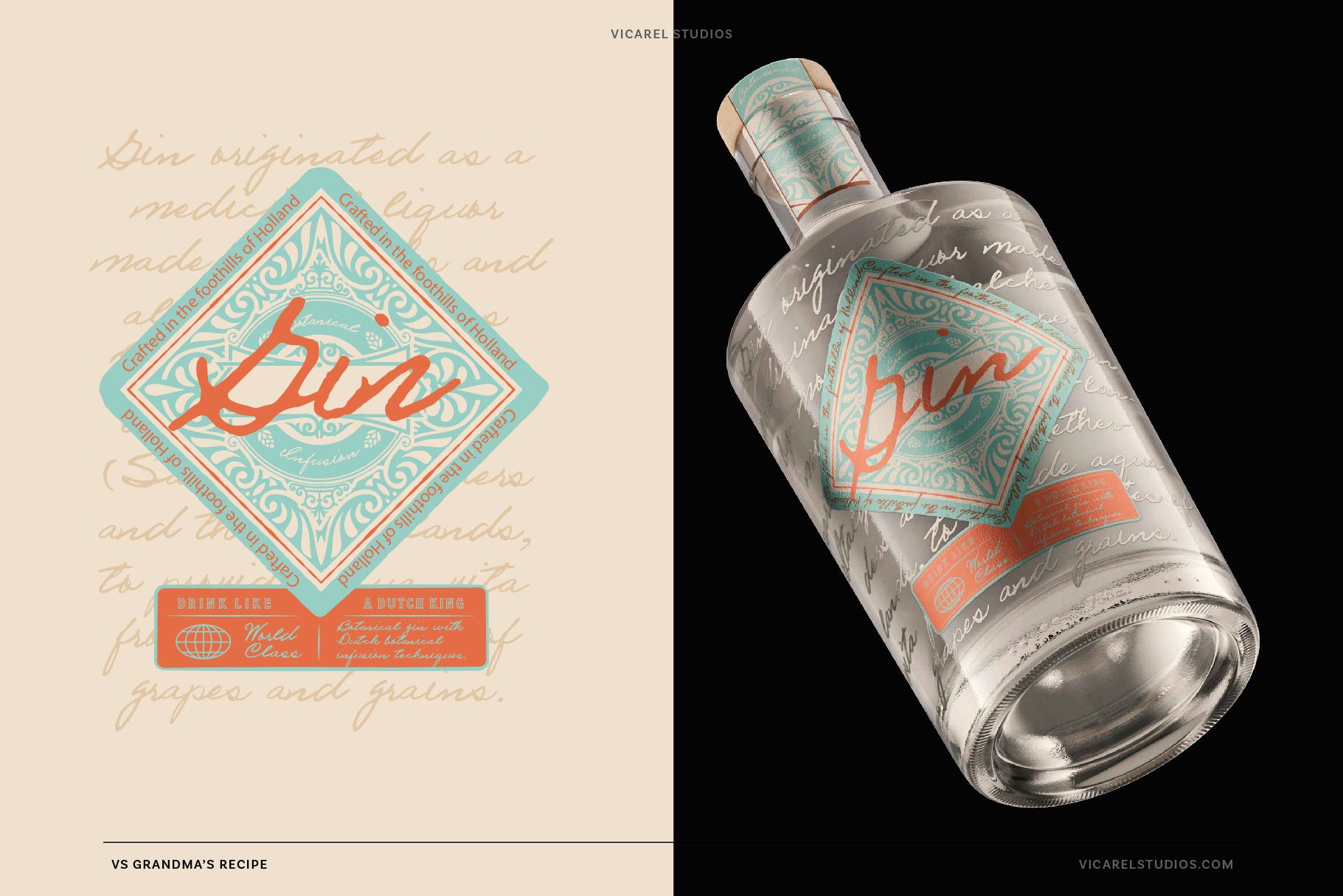
VS Grandma's Recipe: A Realistic Handwritten Script Font Built for Designers
VS Grandma's Recipe: A Handwritten Script Font That Actually Looks Like Handwriting
How we used inspiration from real handwritten notes, letters and recipes to create Vicarel Studio’s first handwritten script font, VS Grandma’s Recipe
If you've ever searched "handwritten script font" and spent 45 minutes scrolling through options that all feel slightly off: welcome to the club.
Most handwriting fonts have a problem: they're too consistent. The feel like “a font”, not “handwriting.” Every "a" looks identical. Every loop is the same width. The baseline is either way too consistent or way too bouncy.
Real handwriting doesn't look like that. Real handwriting has inconsistent angles, uneven line weight, letters that connect differently depending on what comes before or after them. It has personality — because, well, it’s human.
VS Grandma's Recipe is a handwritten script font we made because we couldn’t find what we actually needed. It's based on the actual handwriting of Dorothy — the grandma of our designer, Carly Salzman — whose penmanship was beautiful (if we do say so ourselves). We digitized her letters, analyzed what made them feel human, and built a font that replicates those nuances.
The result is VS Grandma’s Recipe: a script font with multiple variations of almost every letter, number, and punctuation mark. So, when you type a word like "coffee" you get two different f's and two different e's. It looks like something written by hand. Because it basically was.
It works great for packaging labels, wedding stationery, recipe cards, restaurant branding, apparel, and anywhere else where the appearance of human touch is needed. If you've been disappointed by handwriting fonts that look too robotic or too dancey, this font is for you.
If you want to know how we actually built it: the process, decisions and nuances, keep reading :)
VS Grandma’s Recipe is a realistic handwritten script font inspired by the actual, beautiful handwriting of our (designer, Carly Salzman’s) grandma, Dorthy.
For years we’ve looked for realistic handwriting script fonts, and we haven’t been able to find the right one. Despite there being countless options available, handwritten script fonts oftentimes have letters that are too repetitious or too calculated — with VS Grandma’s Recipe we bring you a typeface that actually feels like handwritten letters.
Our goal with this handwritten script font — or, any hand lettered fonts, for that matter — is to create something that captures the unique character and quality of truly handwritten notes, letters, or in this case, handwritten recipes.
In order to create a realistic handwritten font, you need to consider the nuances of true handwriting. After analyzing numerous handwritten fonts, we noticed that the disconnect oftentimes came from the consistent digital application of something that was intended to feel handwritten.
Simply: in order for us to create the best handwritten script font, we simply needed to embrace the nuances of realistic handwriting, not the rules of typography. In acknowledging this, VS Grandma’s Recipe adopts inconsistent angles, imperfect line weight, inconsistent spacing, sporadic connecting and/or unconnected entrance and exit strokes, variability amongst letter forms, and a mildly inconsistent baseline.
BUT, to get a handwritten script font that is not just beautiful, but also functional, the trick is to create the aforementioned inconsistencies, consistently.
We have found that the best script fonts often offer plenty of alternative letterforms (alts), variations for connected or repeated letterforms (ligatures), and plenty of illustrative/type elements that are inherently inspired by the style created (glyphs). VS Grandma’s Recipe offers you the opportunity to explore 2-3 variations of every letter, number, and punctuation. These subtly different letterforms enable a word like “baseball” to have two different “b’s”, two different “l’s” and two different “a’s”, allowing for a truly realistic handwriting font style.
With all of this in mind, VS Grandma’s Recipe was born: a perfect hand drawn typeface that feels authentic, organic, and truly like a note scribbled on paper from the greatest woman on earth: Grandma.
This beautiful handwritten script font has incredibly diverse applications, and it works great as headlines and body copy. This unique hand lettered font is perfect for a bespoke logo design project, it’s the perfect handwritten font for wedding stationery, and it can be used as a beautiful handwriting font for liquor labels and other packaging projects. Use VS Grandma’s Recipe for branding, packaging design, blogs, websites, apparel, and magazines for the wedding, travel, liquor, influencer, photography, vintage or apparel industries and so much more.
After years of finding ourselves unhappy with how calculated and robotic other handwriting-inspired fonts felt, we decided to create our own. VS Grandma’s Recipe is the best handwritten script font, and it was created by designers, for designers.
The best handwritten script font, VS Grandma’s Recipe.